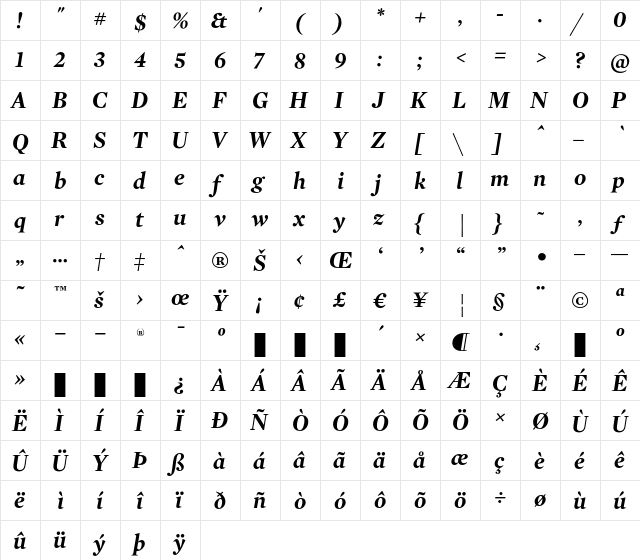
Mercury Display Bold Italic Font Preview
Design Context for Mercury Display Typeface
Mercury Display is built around its visual character rather than neutral utility — its distinctive forms are designed to make an impression at display sizes. Its italic angle brings a sense of urgency and motion to the letterforms. Its bold stroke weight gives it real presence on the page.
Font Pairing: Pair with a clean neutral sans-serif for body copy to let Mercury Display's character lead without overwhelming the composition.
Pro Tip: Use Mercury Display exclusively at display sizes — it was designed to be seen, not read at length. Let a neutral companion handle body copy.